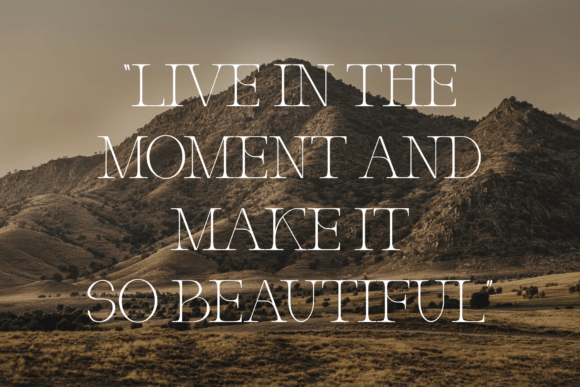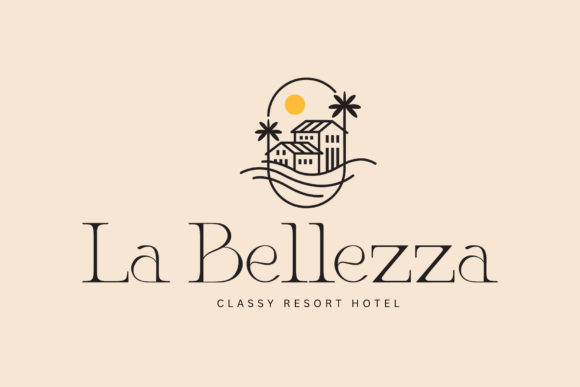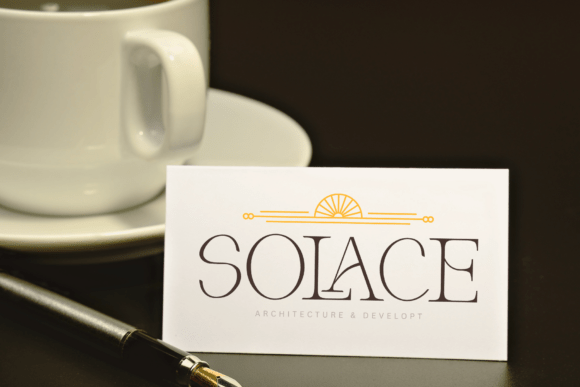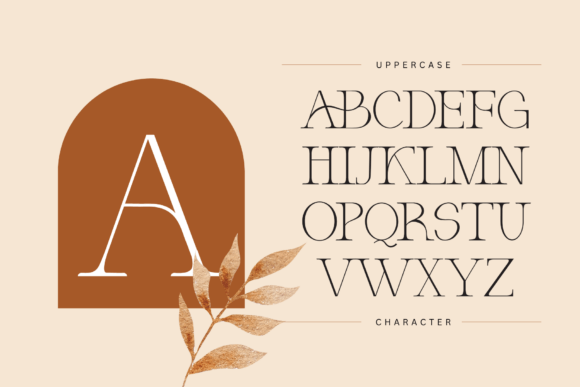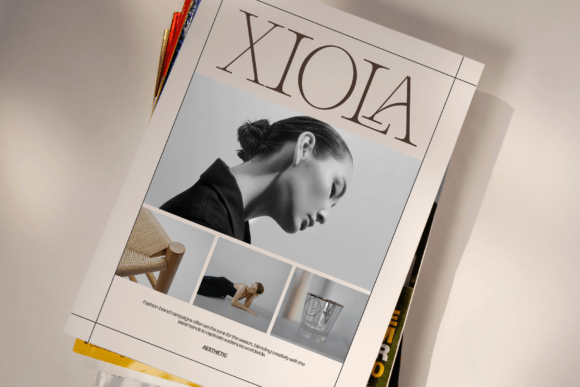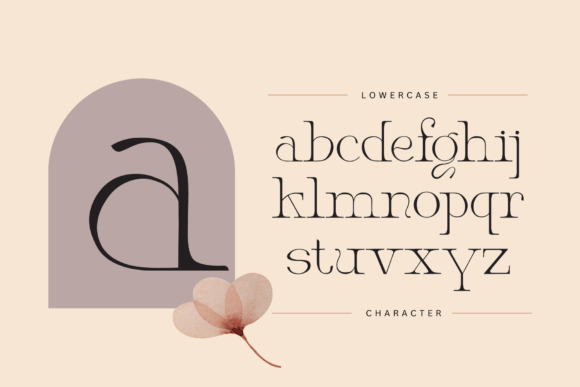
Introduction to Kegla Font
Kegla is a sophisticated serif display font that exudes elegance and refinement.
Designed with luxurious curves and striking contrasts, it features graceful ligatures that enhance its fluidity and charm Perfect for high-end branding, editorial designs, and stylish invitations, Kegla blends timeless beauty with modern flair.